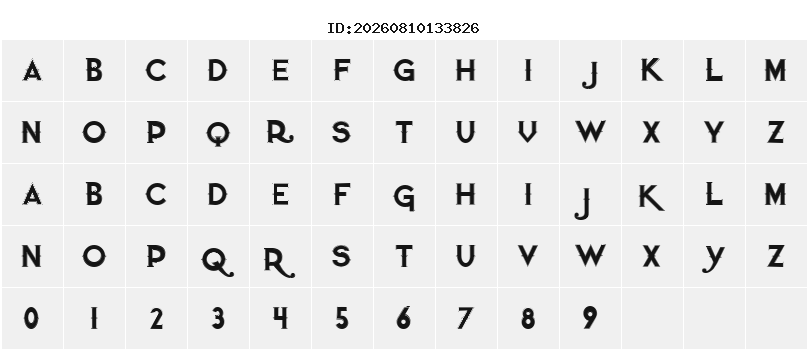
Quiet the Thief Preview
• Font Name: Quiet the Thief
• Font Style: OutlinedTight
• Full Font Name: Quiet the Thief OutlinedTight
• Designer: Matthew Tyndall
• Manufacturer: Matthew Tyndall
About Quiet the Thief.ttf
Quiet the Thief.ttf is a modern, elegant sans-serif font designed for ultimate readability and visual harmony. Perfect for branding, headlines, web design, and print materials.